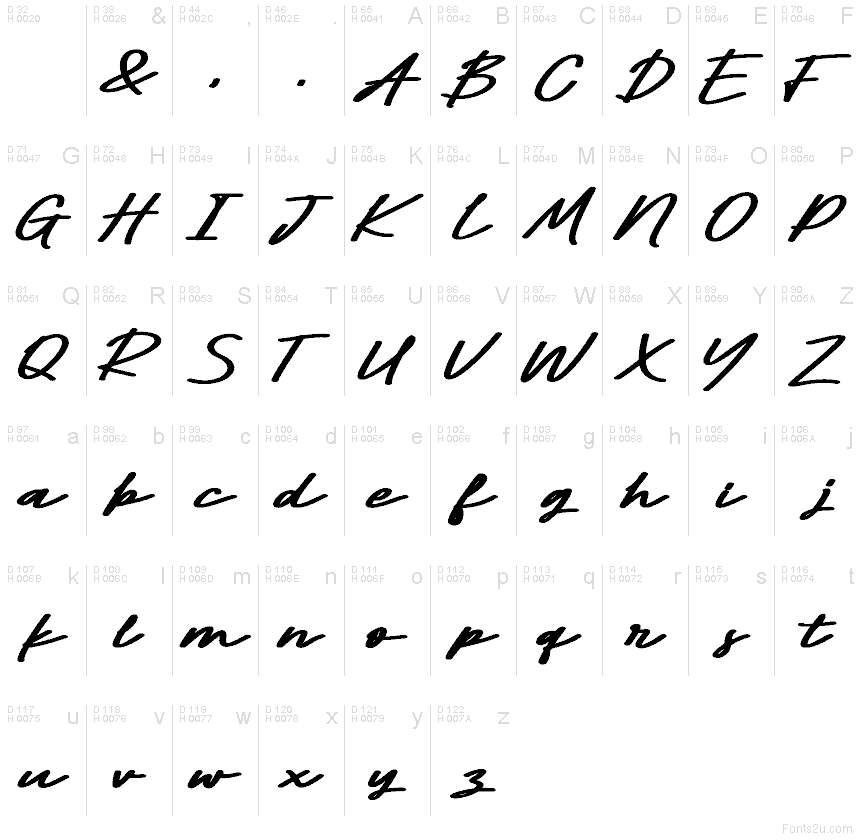
Pamlla Personal Use
Pamlla font is a brush font by Hishand Studio that smooth, flowing, and with a casual elegance. The free handwritten font has the ability to transform any project from dull to unique thanks to its expressive flair which every artist desires. Modern script style adds sophistication and contemporariness to all graphic design works.
Use Pamlla in photography watermarks, notebooks covers, diaries texts, greeting cards, invitations (especially for weddings), book titles, websites subheadings, wall art designs for interior decorations or posters/flyers. The dazzling stylish signature typeface also does wonders on packaging designs.